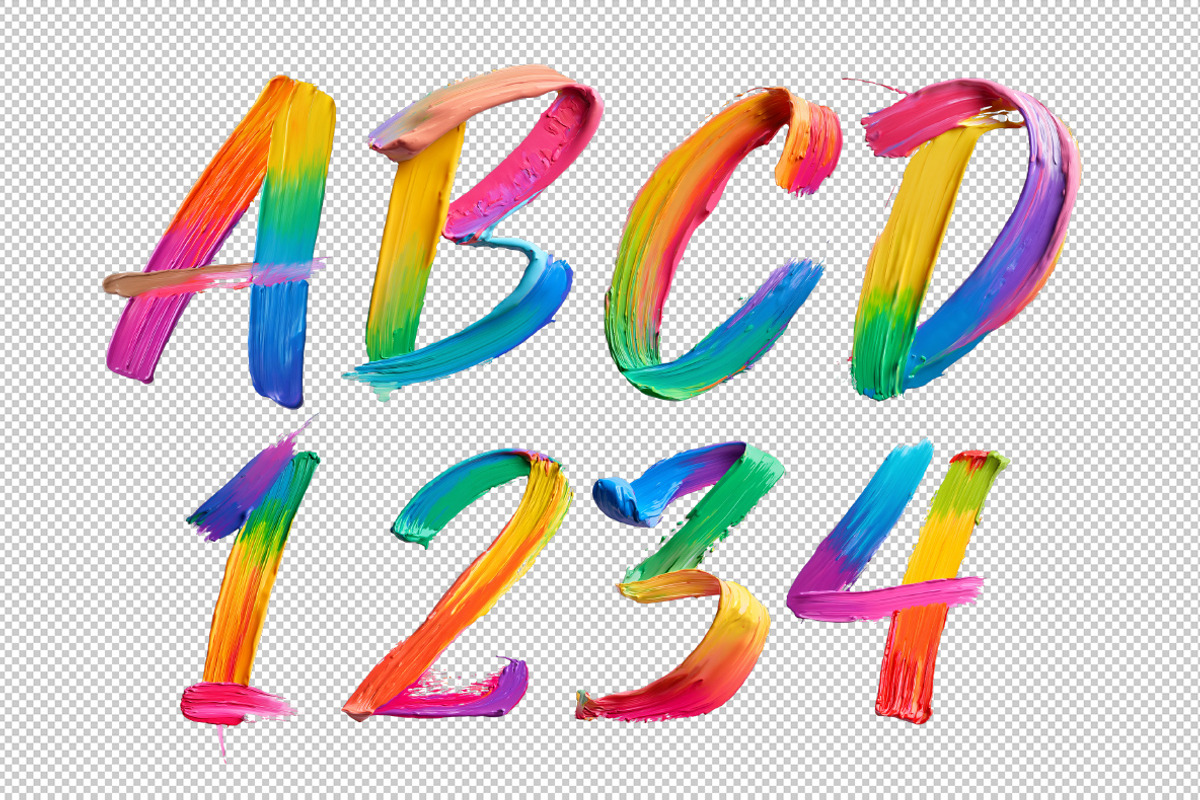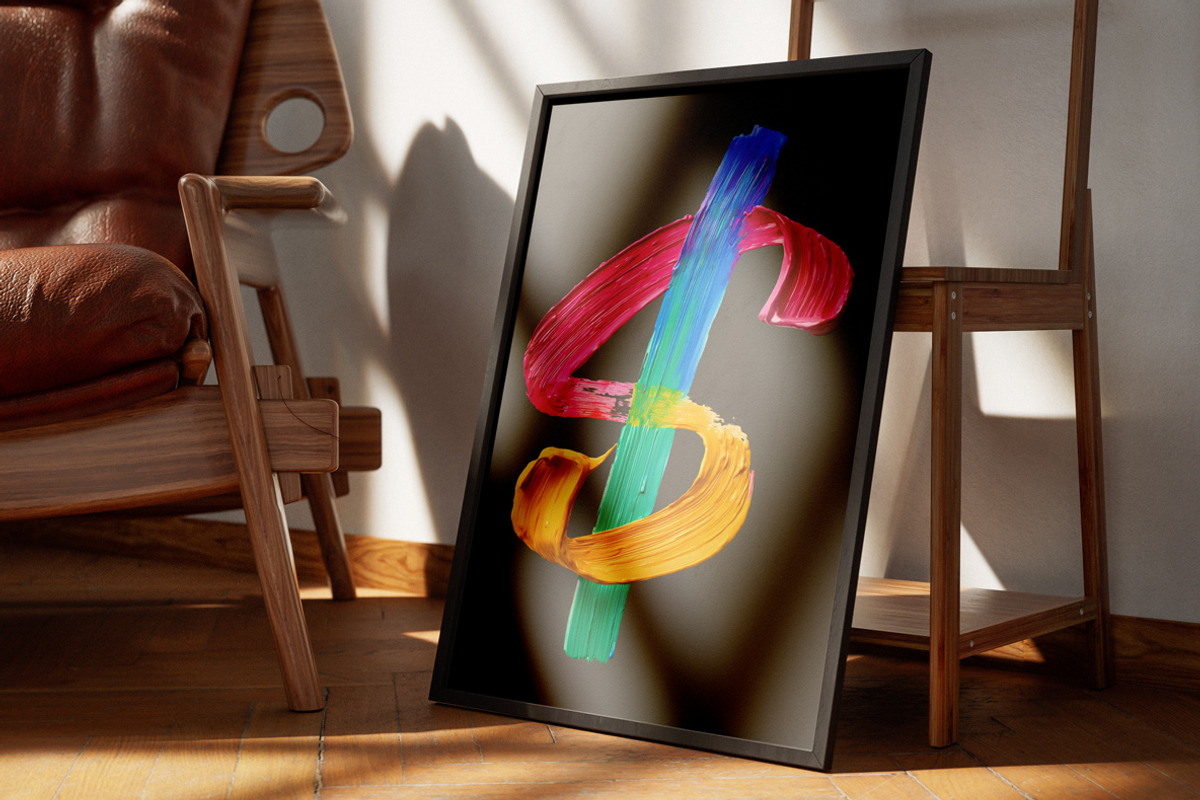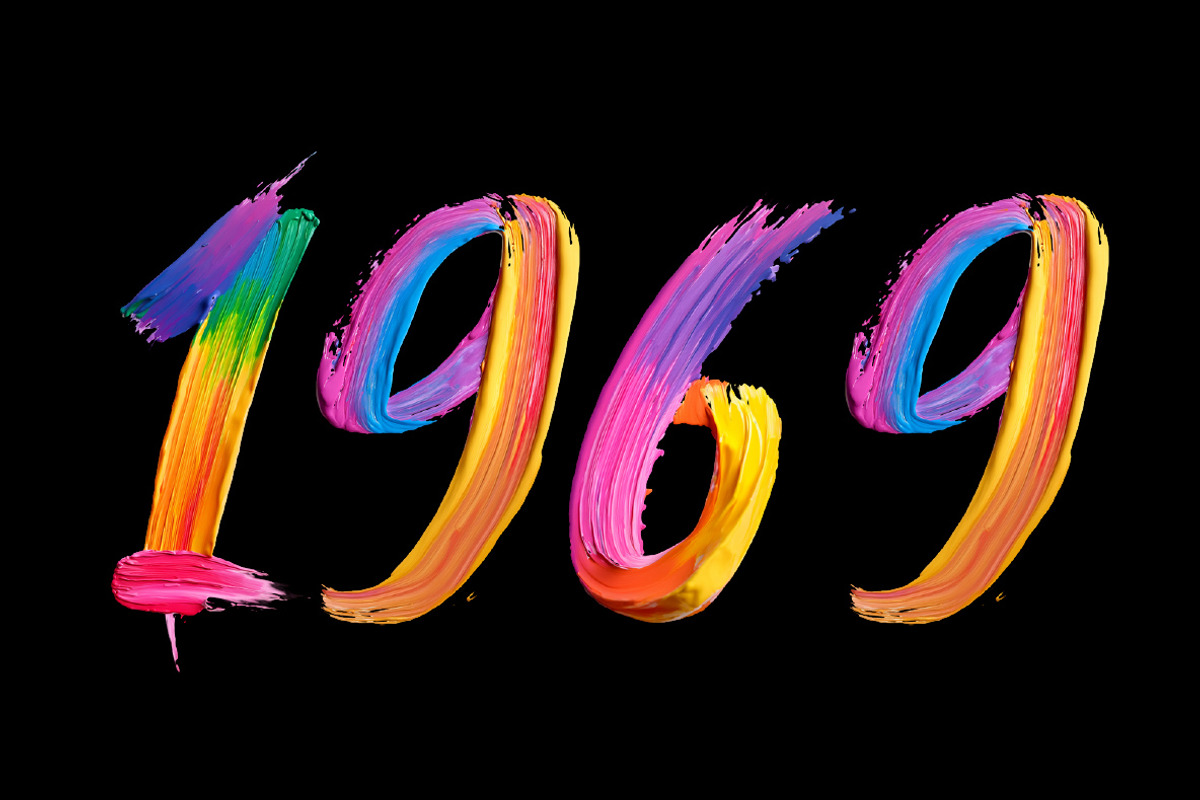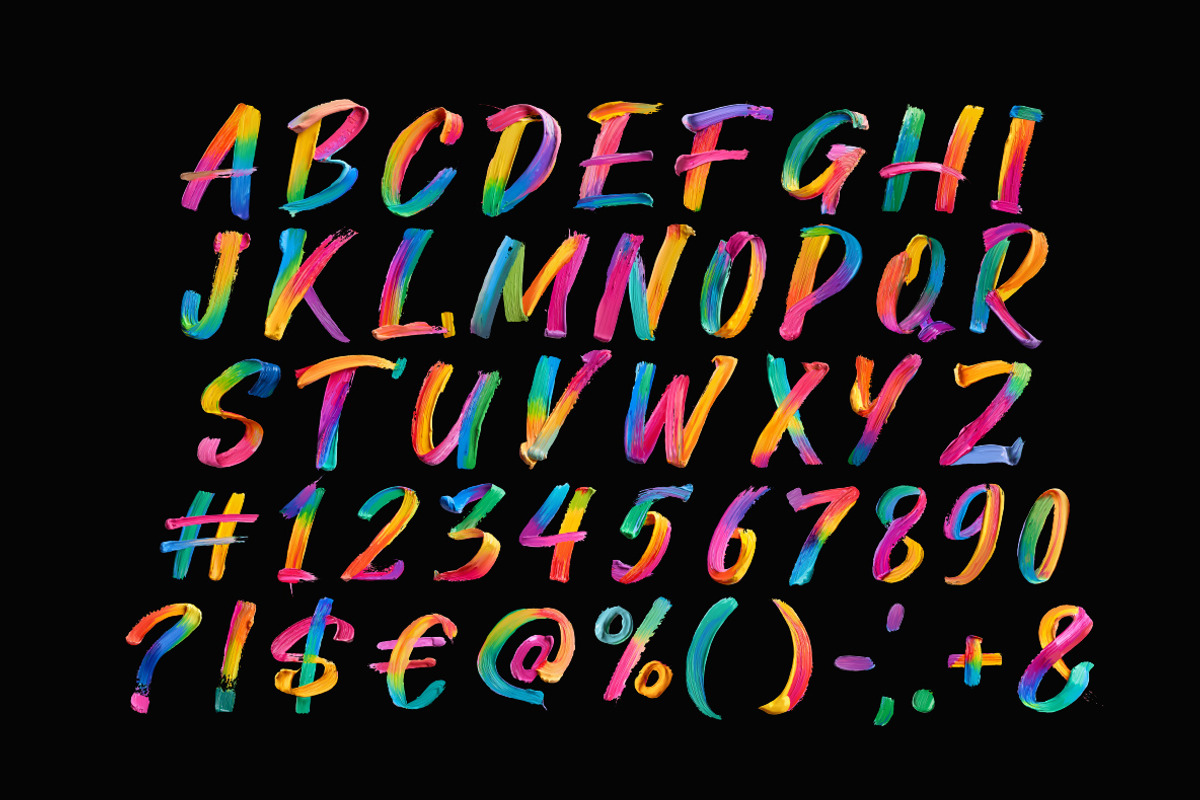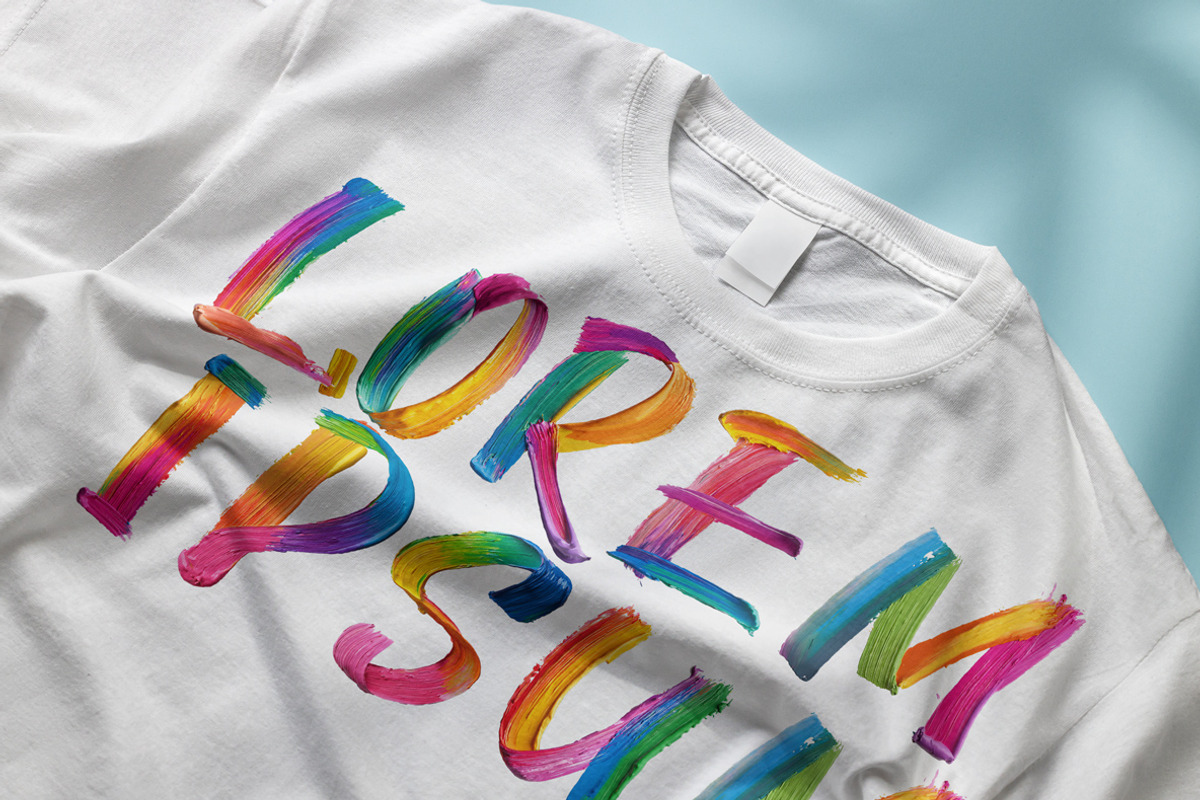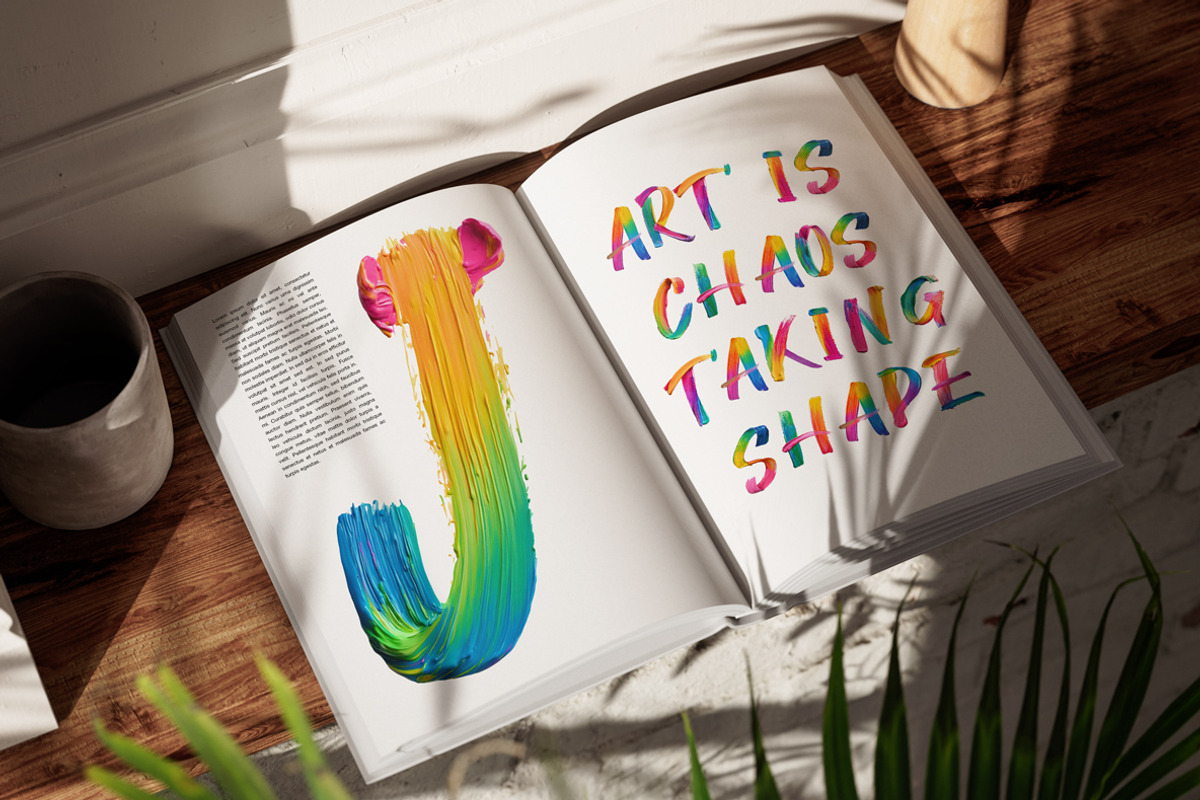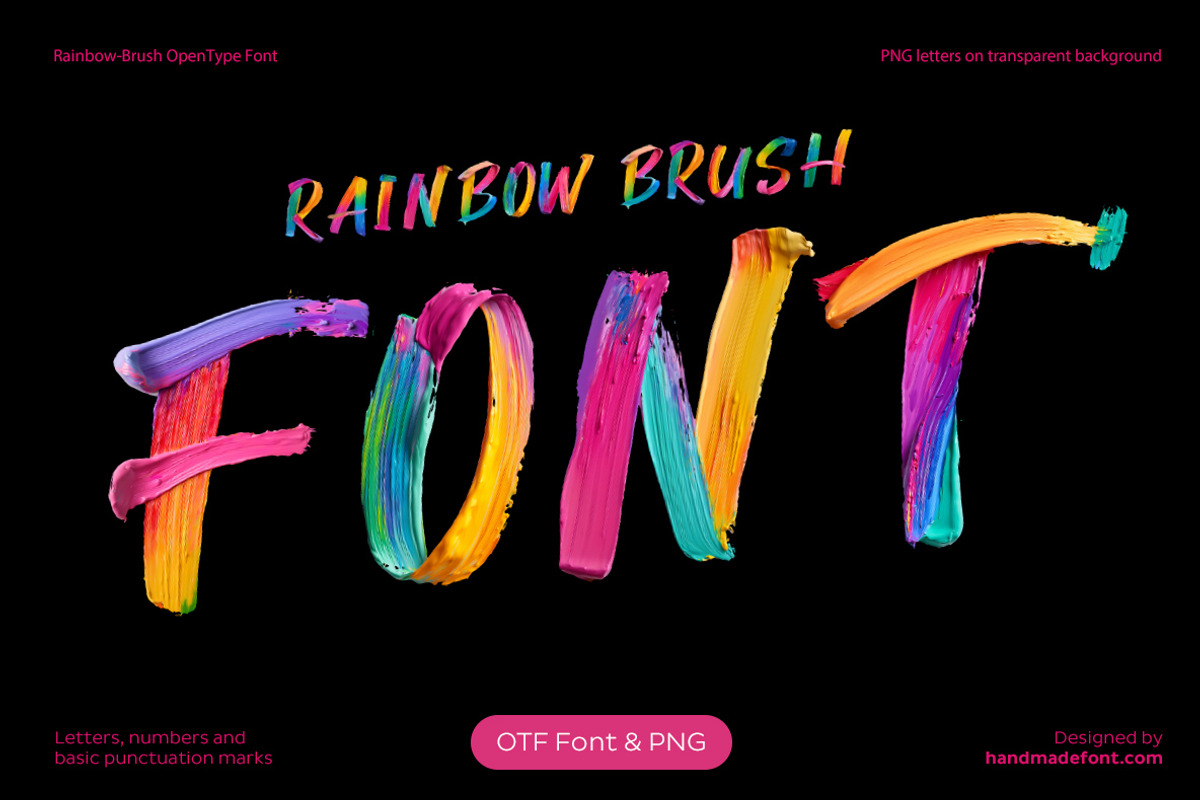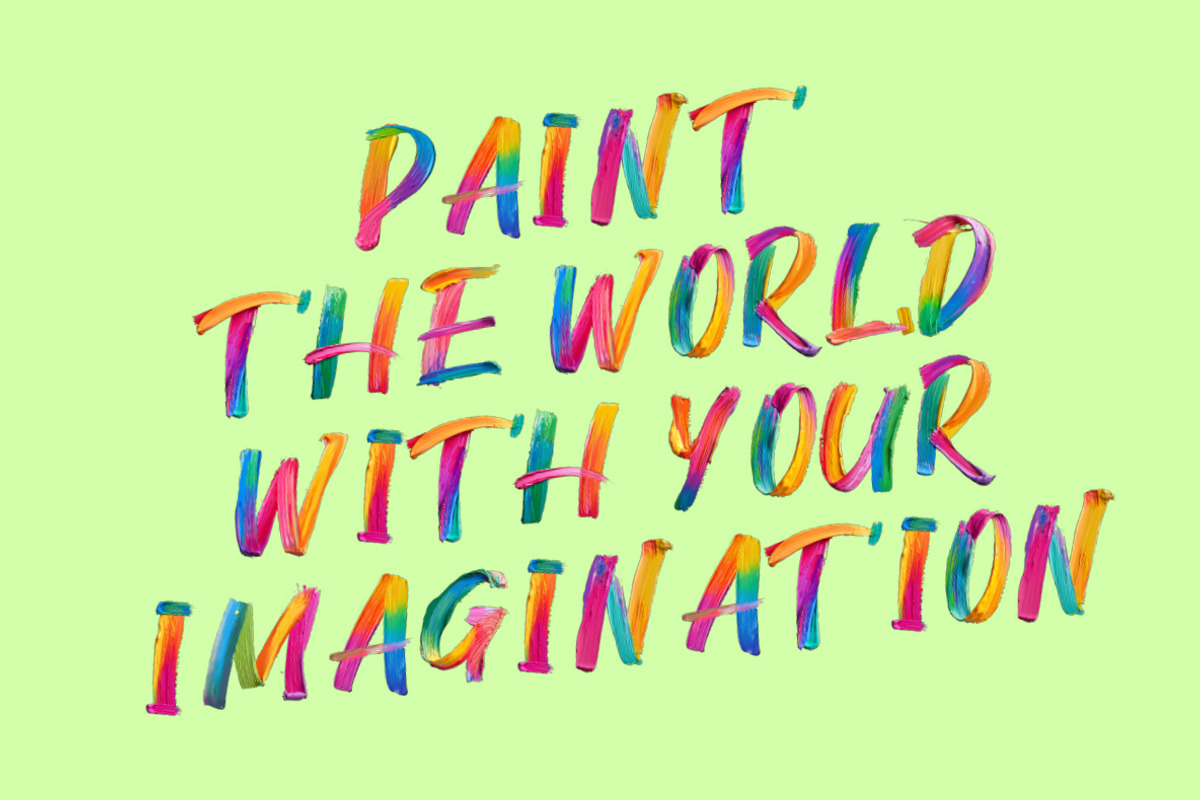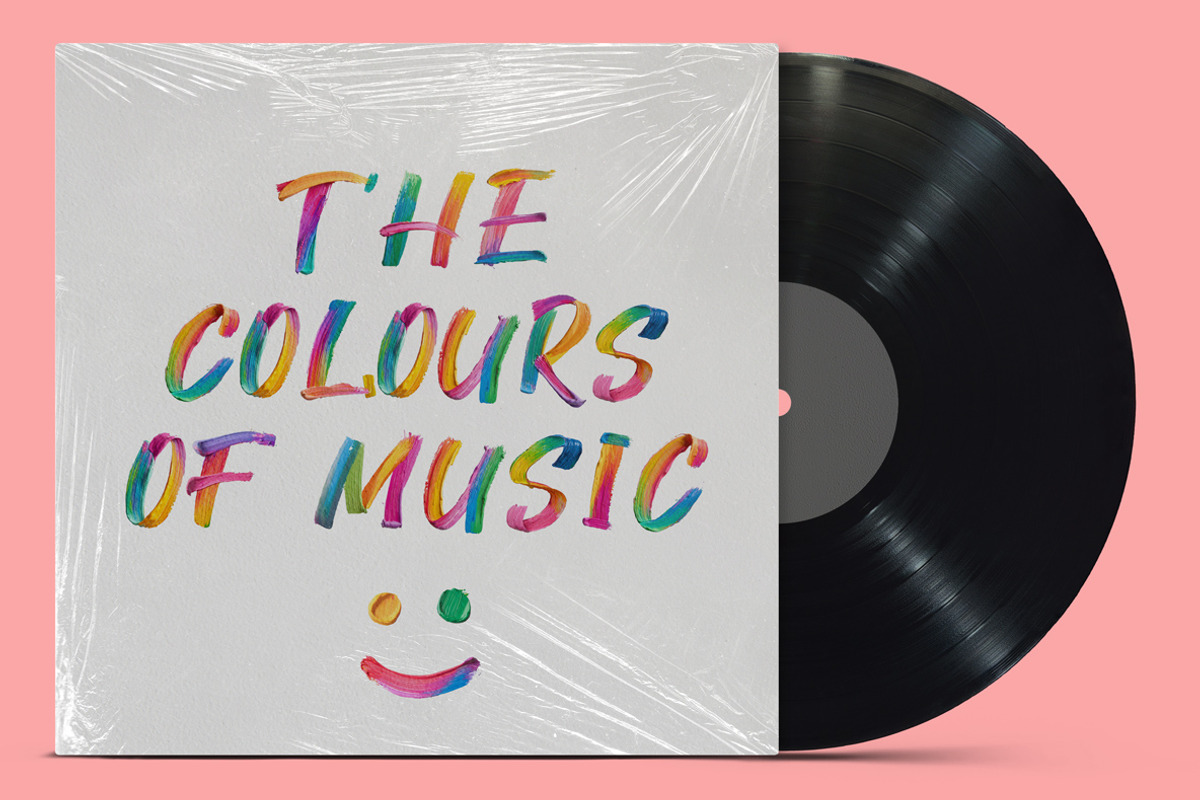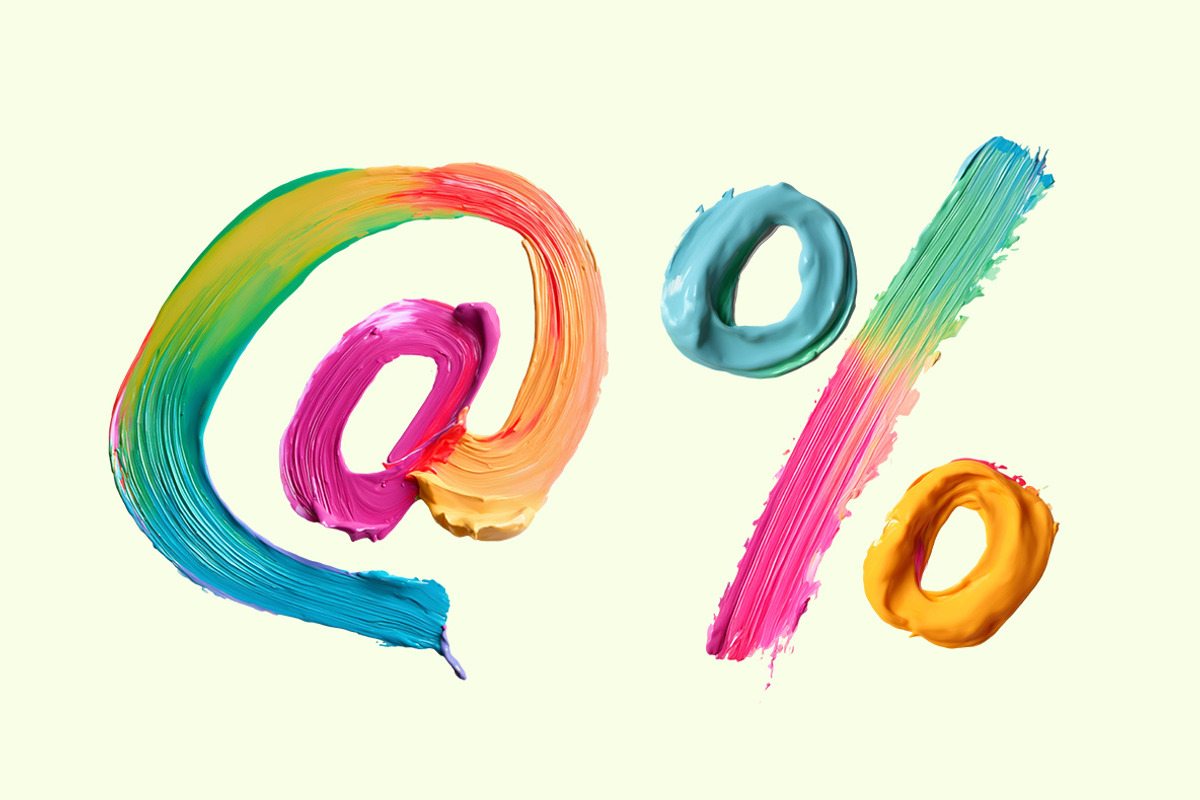
Rainbow Brush Font
Artistic chaos has never looked this good! Rainbow Brush Font is a wild splash of creativity, where each letter is dipped, drenched, and utterly drenched in vibrant, multicolor magic. Imagine a paintbrush possessed by a color-happy spirit, swirling through fiery reds, electric blues, and zesty yellows in a seamless, fluid dance. The bold strokes, thick with glossy texture, make every word feel freshly painted—because why type when you can paint? Expressive, dynamic, and bursting with energy, this brush typography turns even the dullest text into a masterpiece. Warning: May cause an uncontrollable urge to finger-paint everything you see.
A high definition OpenType Font. Contains uppercase characters, numerals and basic punctuation. (Draw height roughly 800 pixels). All letters and glyphs that comprises this font you can see on the preview.
- Letters : A B C D E F G H I J K L M N O P Q R S T U V W X Y Z
- Numbers : 0 1 2 3 4 5 6 7 8 9
- Others : ! ? - . ' $ € % & #